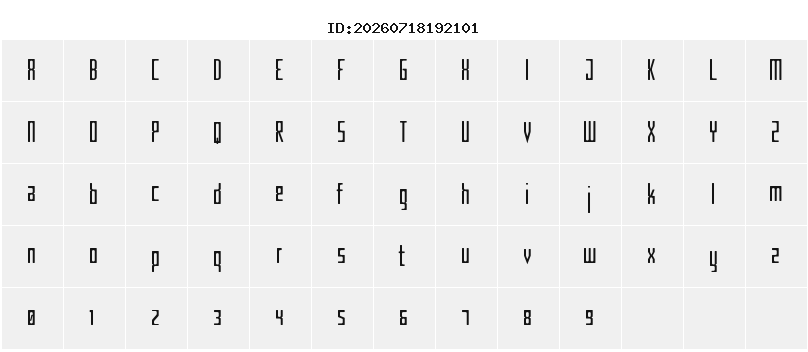
Criminal Preview
• Font Name: Criminal
• Font Style: Narrow
• Font ID: Altsys Fontographer 4.0.4 Criminal Narrow
• Full Font Name: Criminal Narrow
• Version: Altsys Fontographer 4.0.4 4/21/97
• PostScript Name: CriminalNarrow
About Criminal.ttf
Criminal.ttf is a modern, elegant sans-serif font designed for ultimate readability and visual harmony. Perfect for branding, headlines, web design, and print materials.